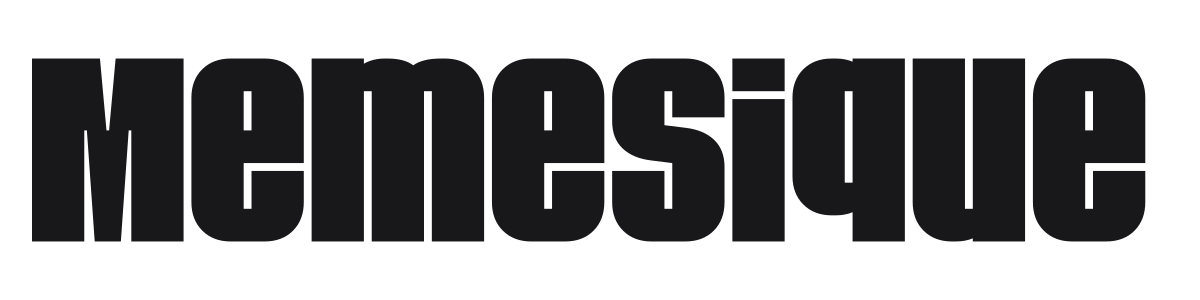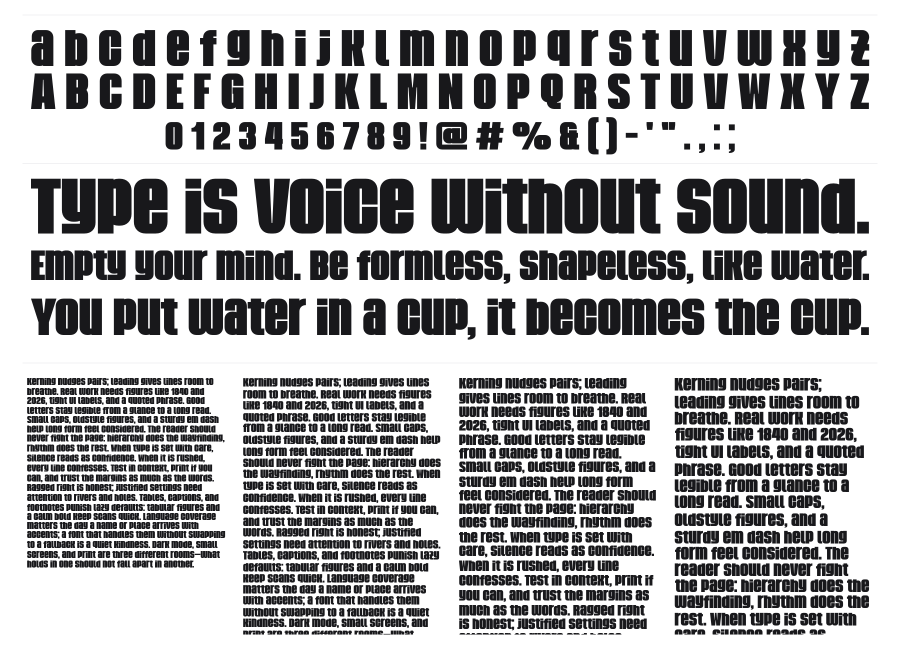
Memesique
by Harold Schumacher
Memesique is an ultra-condensed, ultra-heavy display sans with notched cutouts at stroke junctions that give it a raw, mechanical edge. Its compressed proportions and extreme weight make it the kind of face that dominates a poster at a glance. The retro-grotesque structure sits comfortably alongside internet-era boldness.